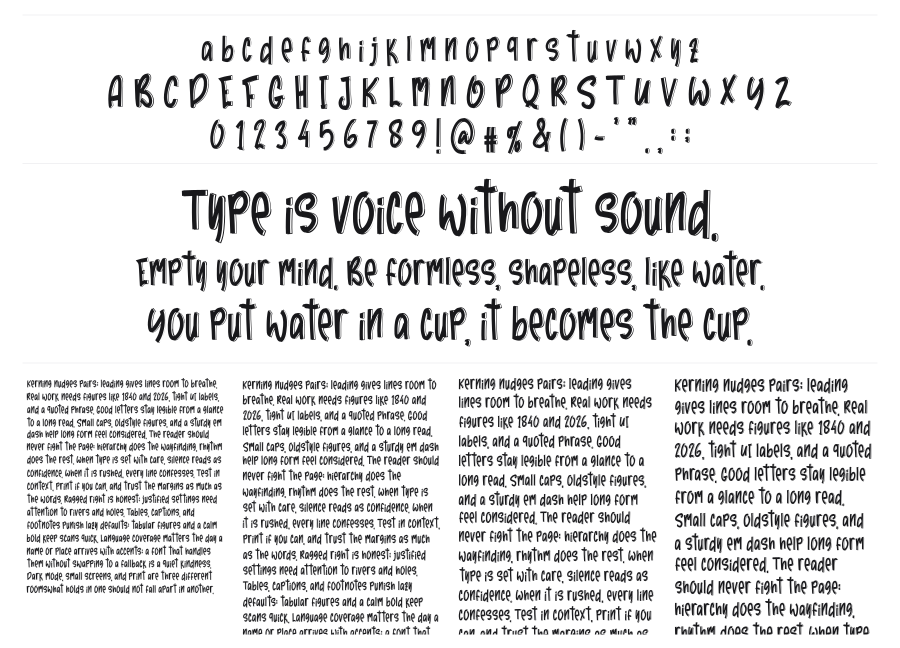
Creative Store
by Katrin Studio
Creative Store is a chunky casual display font with bold, hand-drawn character and a subtle inline shadow that gives each letter a lively, dimensional quality. The mixed rounded and angular forms land somewhere between a comic book and a friendly shop sign. It brings energy to retail branding, event posters, and anywhere a design needs to feel upbeat and approachable.